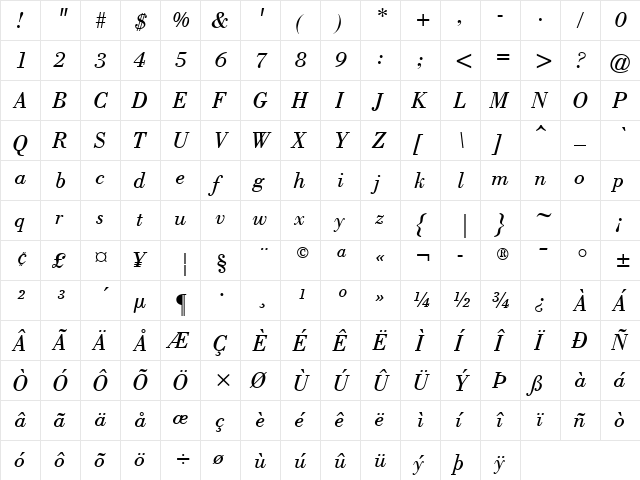
Jubilate Italic Regular
Design Context for Jubilate Italic Typeface
Jubilate Italic is a composed and adaptable typeface that performs quietly and consistently across a wide range of design contexts. The dynamic lean of this cut emphasises speed and emphasis in any layout.
Pro Tip: Use Jubilate Italic for emphasis, pull quotes, and subheadings where its slanted energy can add rhythm to the layout.